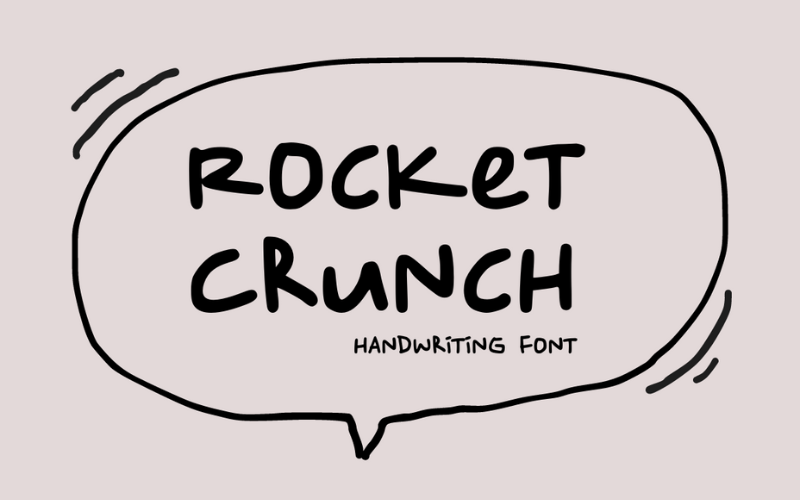
Rocket Crunch – Handwritten Font Font
About Rocket Crunch – Handwritten Font
Rocket Crunch is a playful handwritten font with a bold, energetic feel. Its quirky, natural strokes make it perfect for adding a fun, personal touch to your projects. Whether you're designing for posters, invitations, or branding, Rocket Crunch brings a unique and lively character to your work, giving it a fresh and creative vibe.